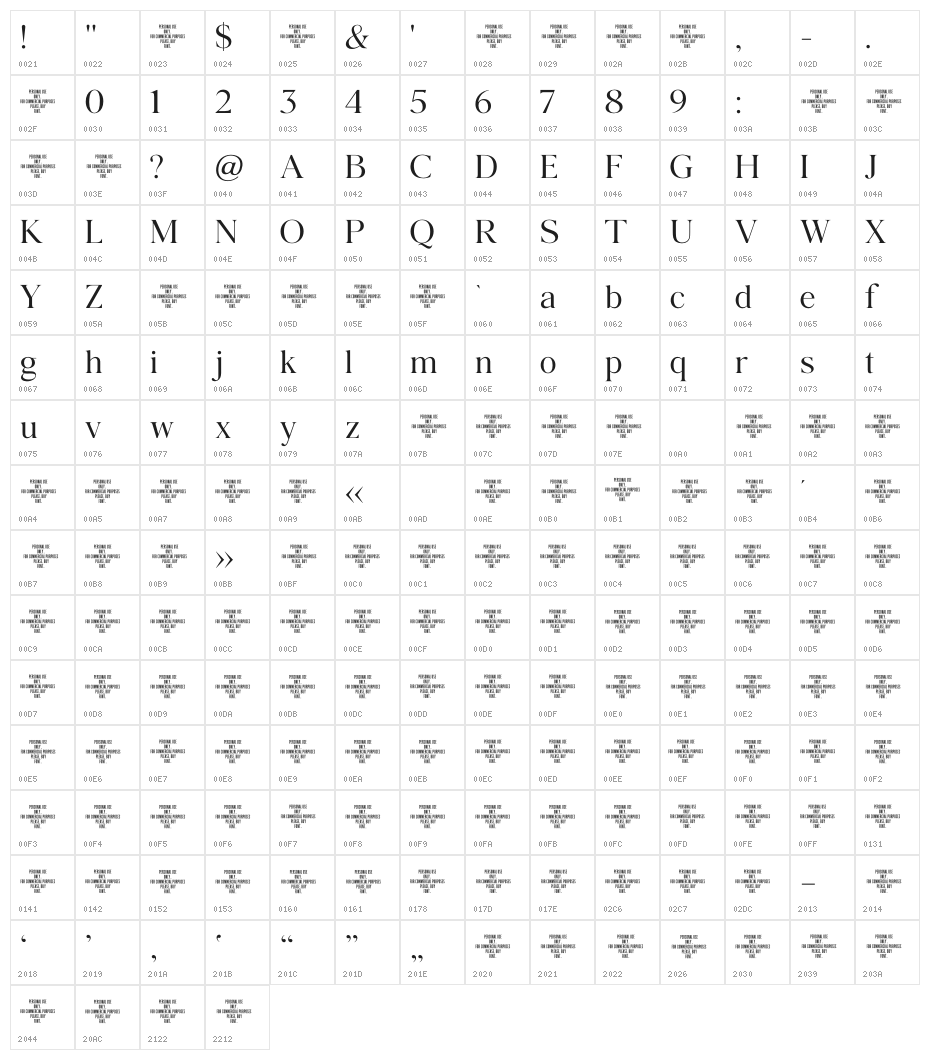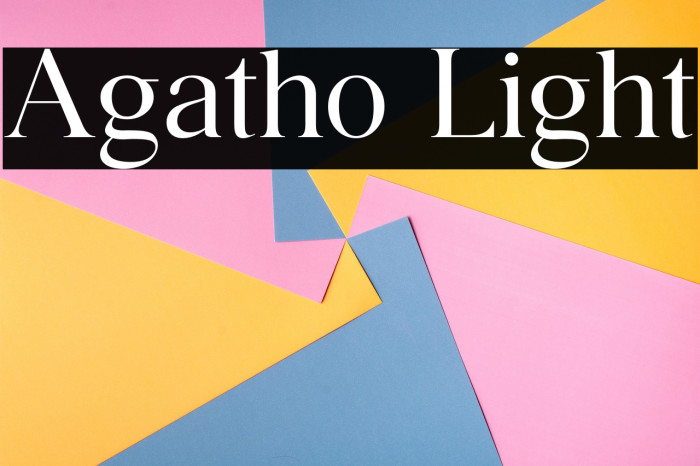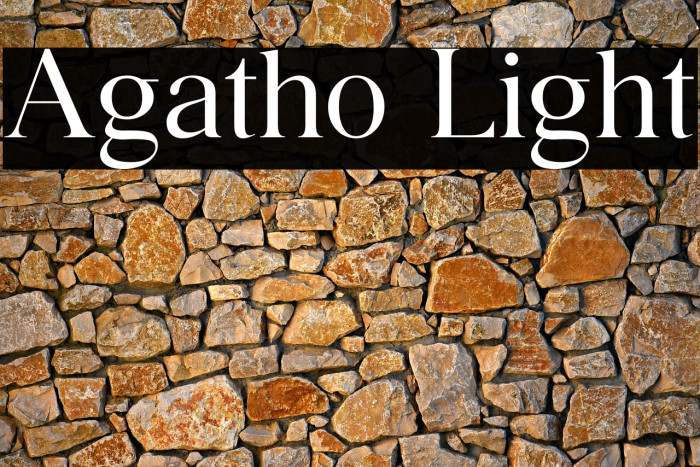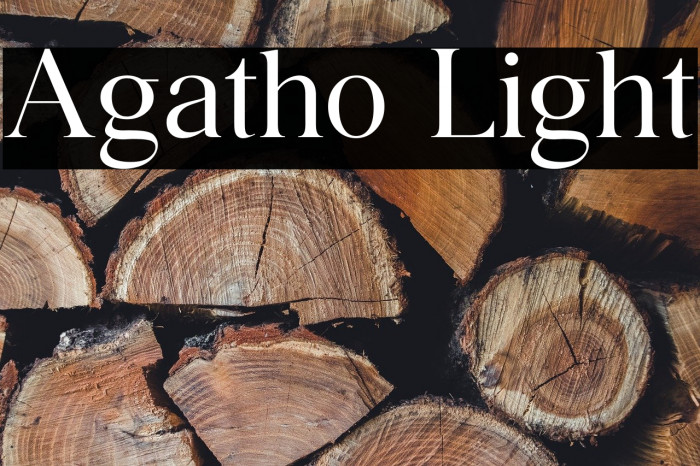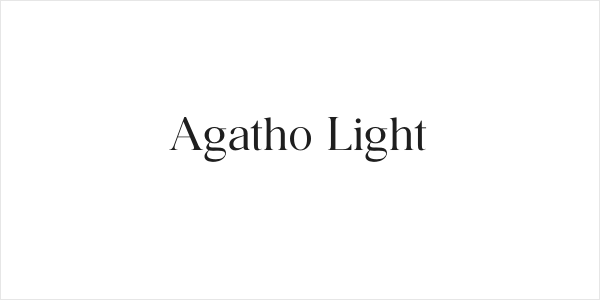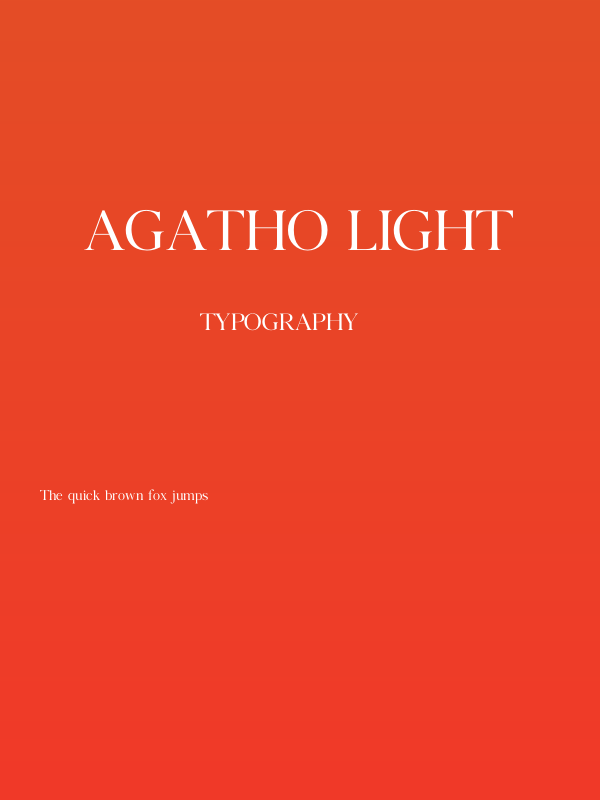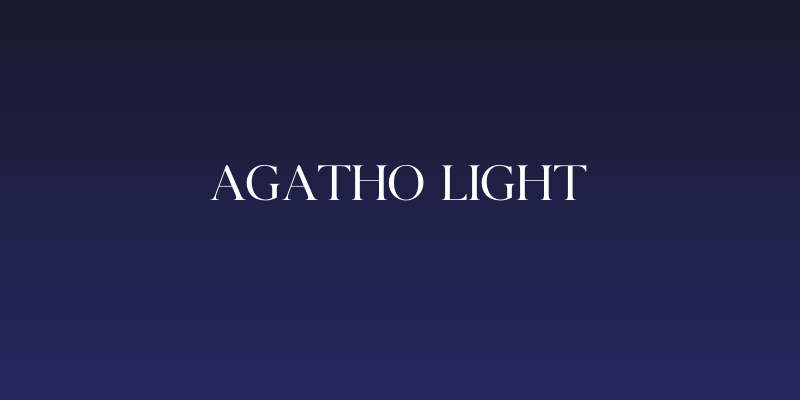
Agatho Light Font
Agatho Light Description
This font features a classic serif style with elegant, thin strokes and high contrast between thick and thin lines. The uppercase letters are tall and stately, while the lowercase letters maintain a graceful, flowing appearance. The numerals are clear and distinct, with a traditional look that complements the overall design. Special characters are well-integrated, maintaining the font's refined aesthetic. The font's sophisticated style makes it suitable for formal and elegant design projects.
| Use Case | Headlines, Logos, Editorial design |
| Proposed Projects | Ideal for wedding invitations, luxury branding, editorial design, and high-end product packaging. |